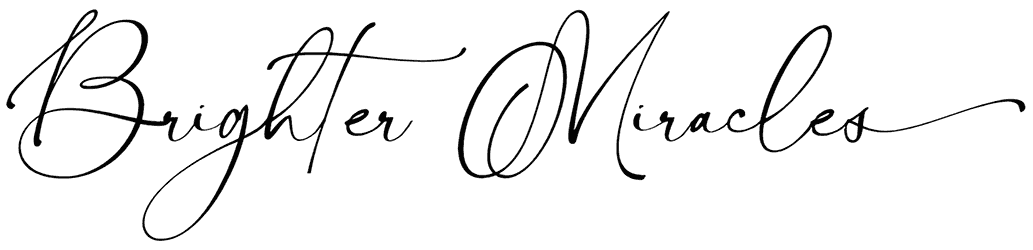
Brighter Miracles Font
If your project needs a casual touch to lighten the mood, Brighter Miracles can give you a professional look. Highlighting this script font for graphic design, branding, and logo design will help you to have a new tool to impress customers. Despite its illegible appearance and lack of numbers, this feminine font can strengthen your career and create a bright spot in your resume.
Brighter Miracles is a handcrafted font designed to bring your branding to life and add a touch of elegance, modernity and style. Perfect for social media branding projects, fashion designs, printed quotes, packaging, or even as a stylish text overlay to any background image.